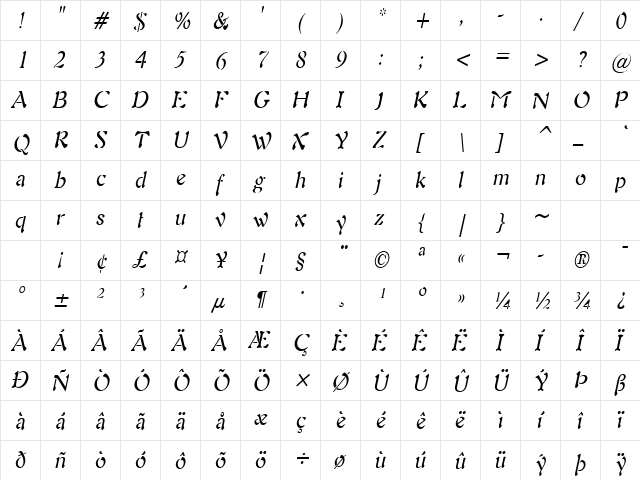
Freedom 9-Condensed Italic Font Preview
Design Context for Freedom 9-Condensed Typeface
Freedom 9-Condensed takes a measured approach to typography — its balanced proportions and neutral character make it a reliable workhorse for both digital and print work. The dynamic lean of this cut emphasises speed and emphasis in any layout. Its narrow stance lets it pack a punch even in space-constrained designs.